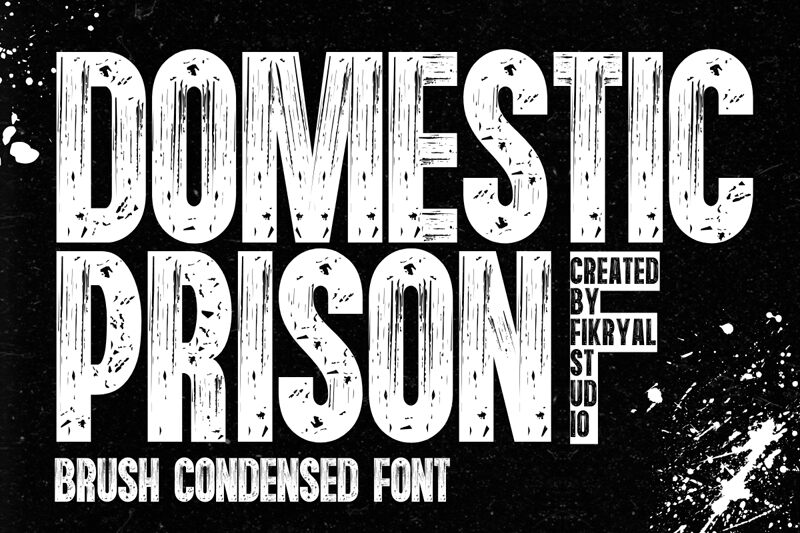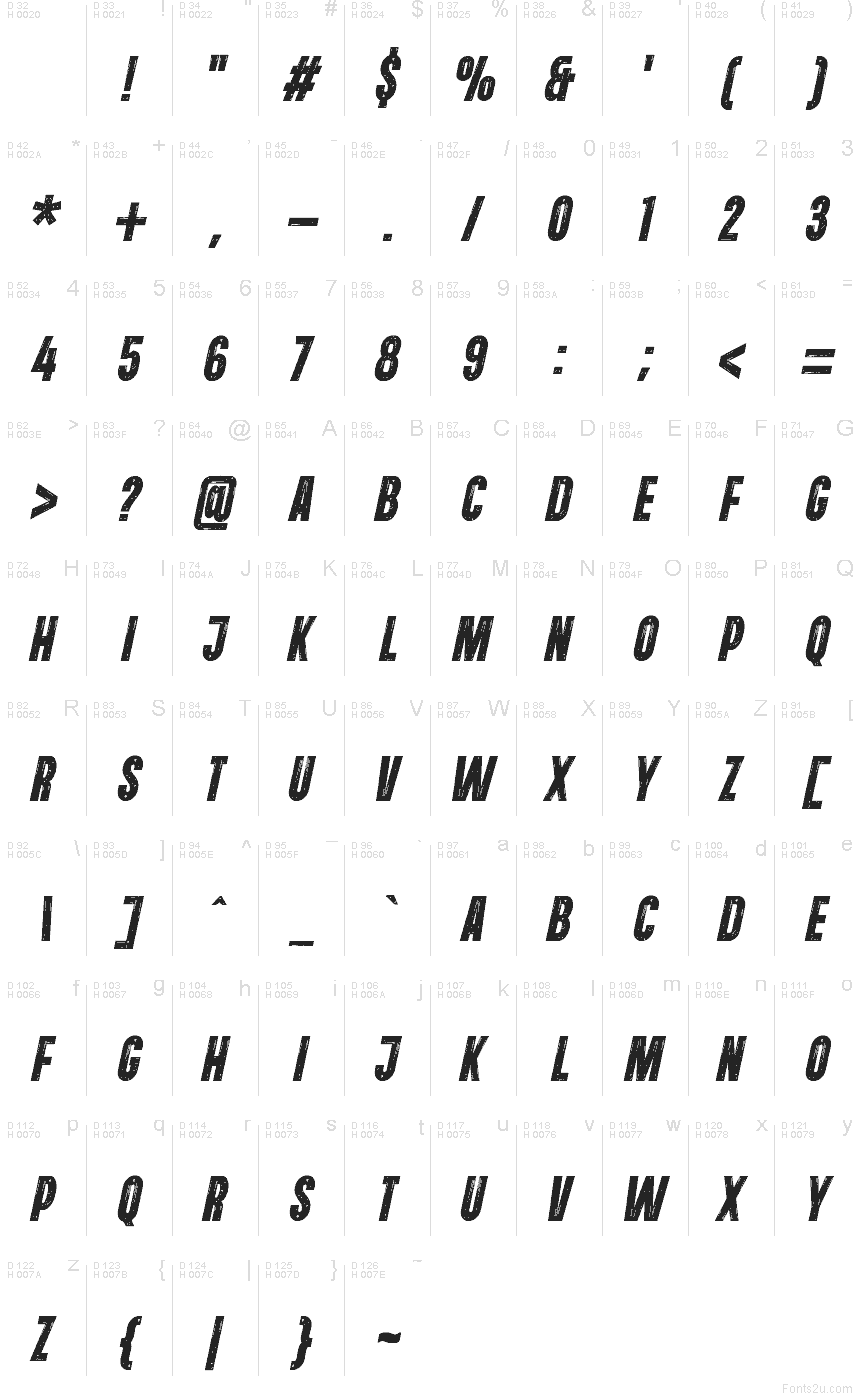
Domestic Prison Italic
Domestic Prison Italic font by Muhamad Fikry Nuralif of Fikryal Studio is a free eroded grunge font that looks like it’s been scraped across concrete and dragged through ink. Part of the Domestic Prison typeface family, its tall, condensed letters lean hard forward, with rough streaks and pitted gaps that feel tense, noisy, and a little dangerous. The heavy black shapes and distressed texture grab attention instantly, making every word feel like a warning or a shout.
Using Domestic Prison Italic, you can push intensity on horror movie posters, crime or thriller book covers, metal or punk gig flyers, escape-room branding, gritty game titles, or protest graphics. This free font shines when used big and tight, so let it dominate your layout and pair it with a clean, neutral sans serif for supporting text to keep everything readable but still raw.